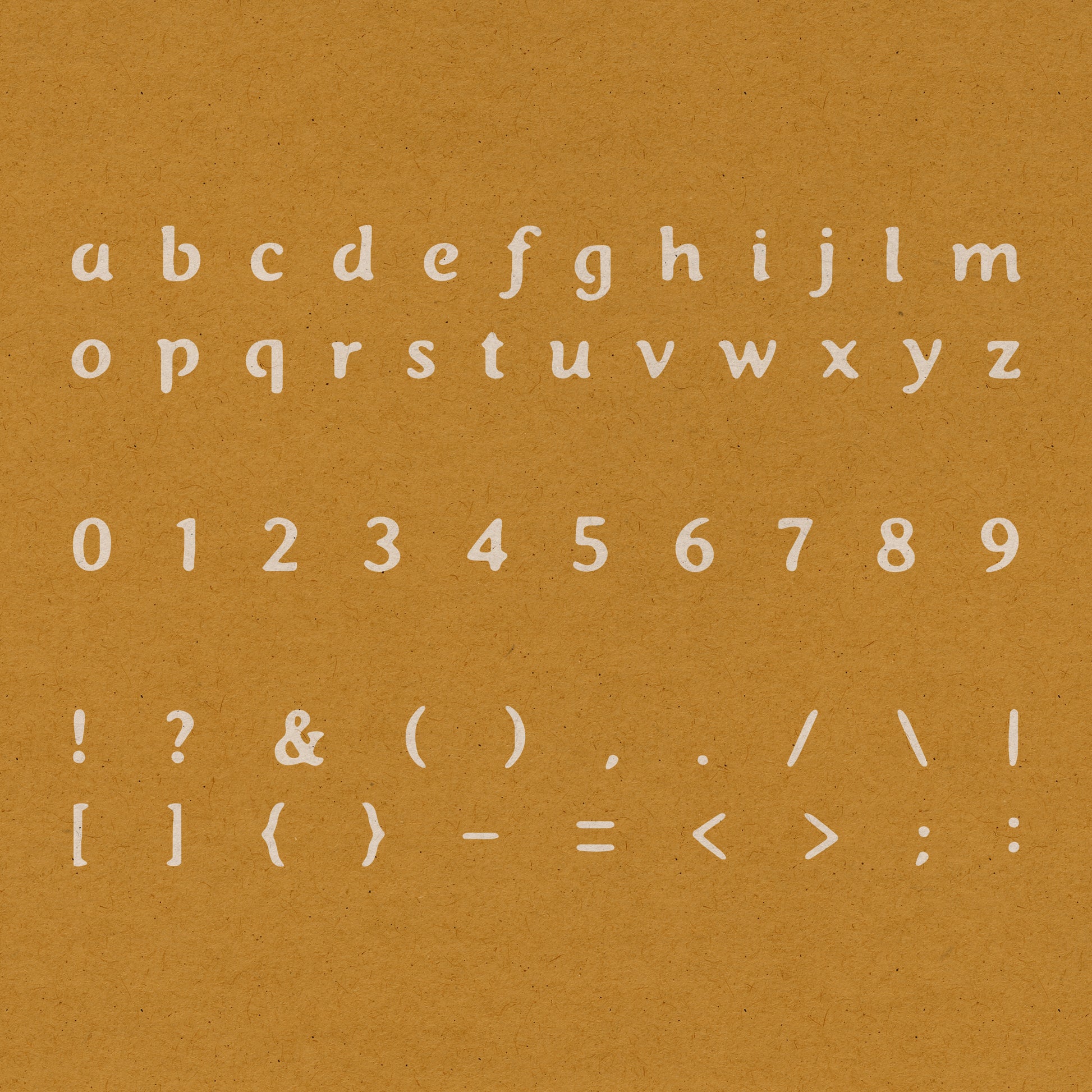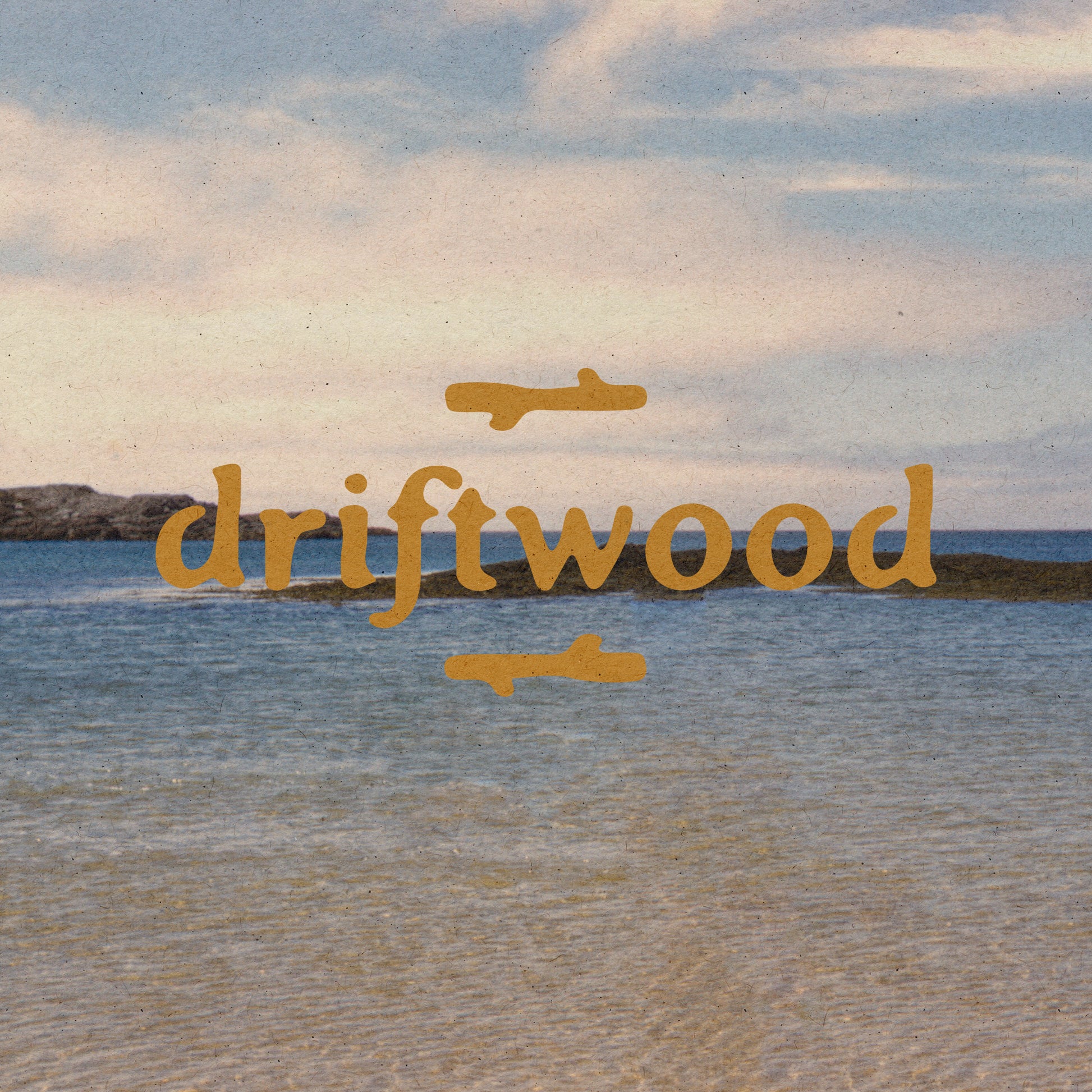
Driftwood Font
Driftwood is a hand drawn display font, available in lower case, characters and numbers. It is inspired by old crate labels, stencils and signage.